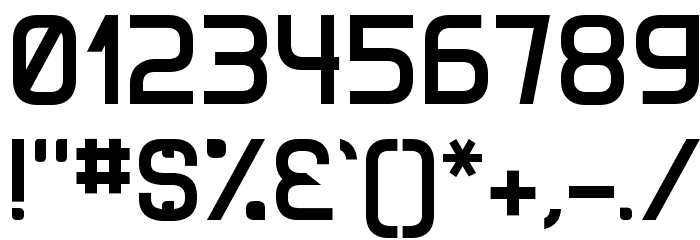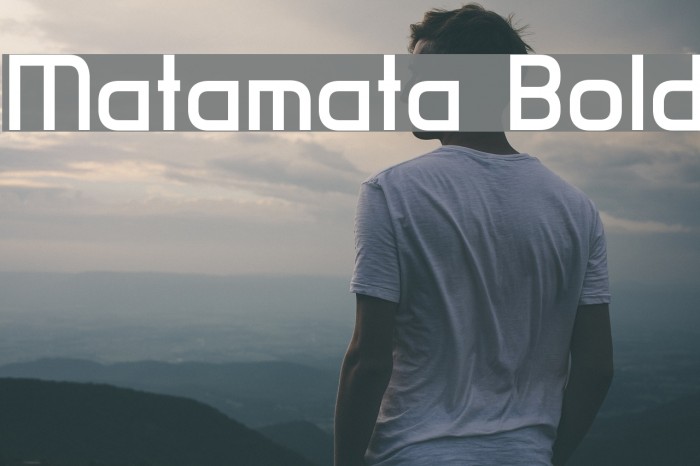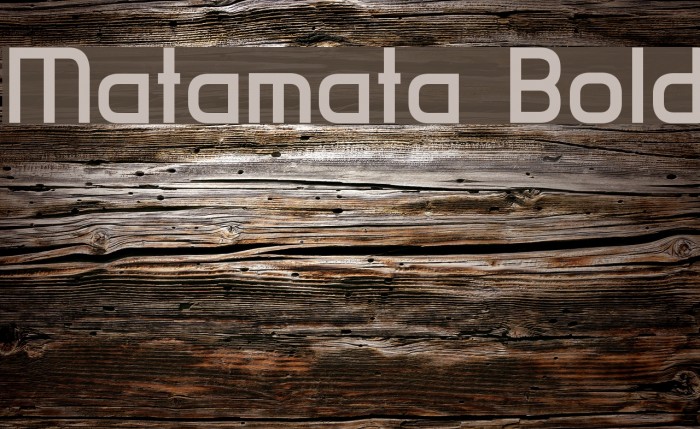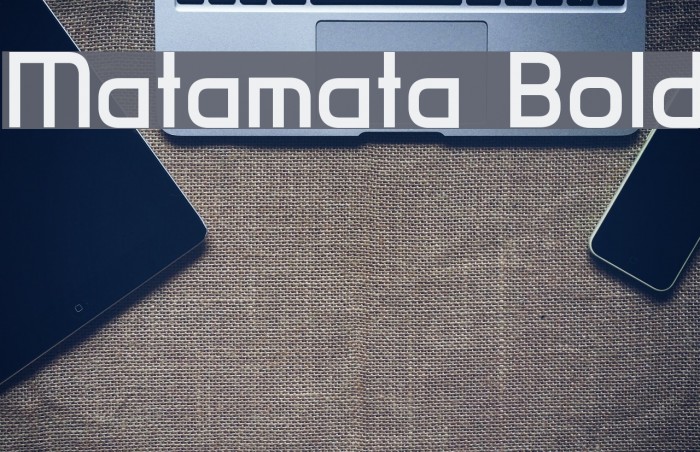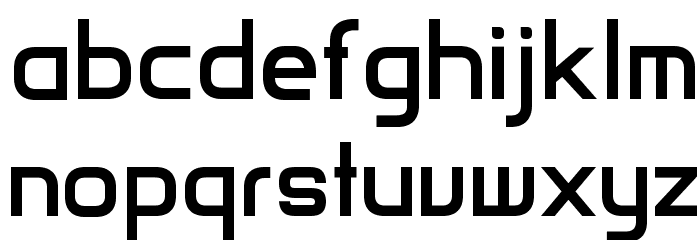
Matamata Bold Font
Matamata Bold Description
This font features a modern and geometric design with clean lines and a structured appearance. The characters are bold and uniform, providing a strong visual impact. The uppercase and lowercase letters maintain a consistent height, contributing to a cohesive look. The numerals are distinct and easy to read, while the special characters are well-integrated into the overall style. The font's design is versatile, making it suitable for various applications where clarity and modernity are desired.
A bold, geometric font with clean lines and a modern aesthetic from Uncategorized fonts.
- Proposed Projects: Ideal for branding, advertising, posters, and digital media where a modern and impactful look is needed.